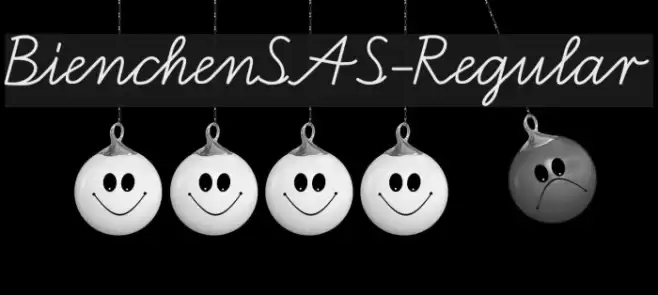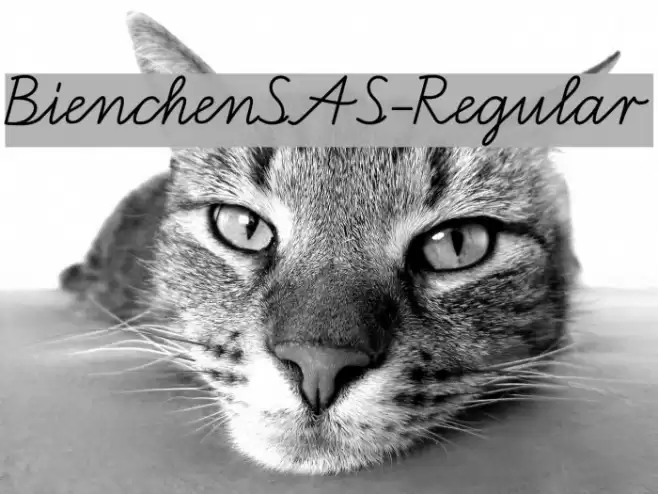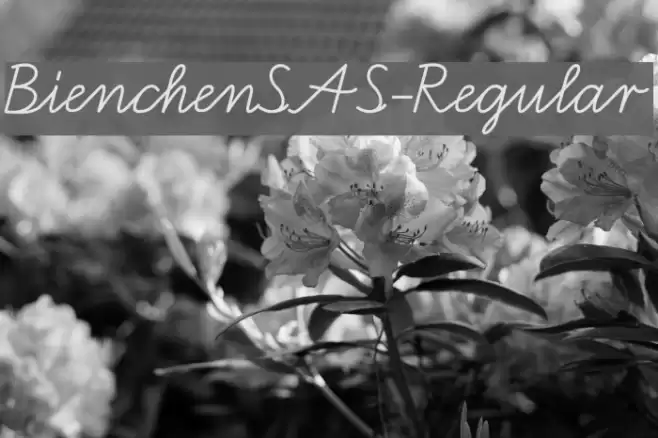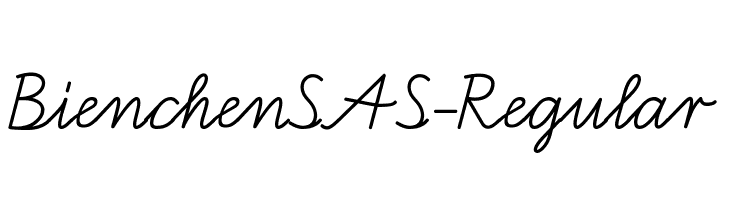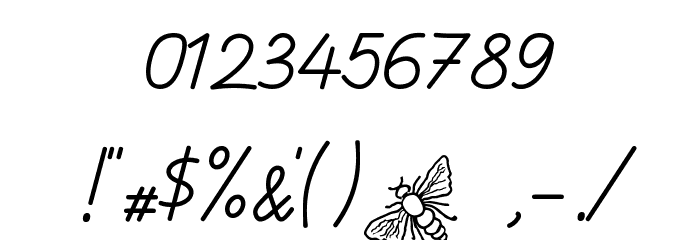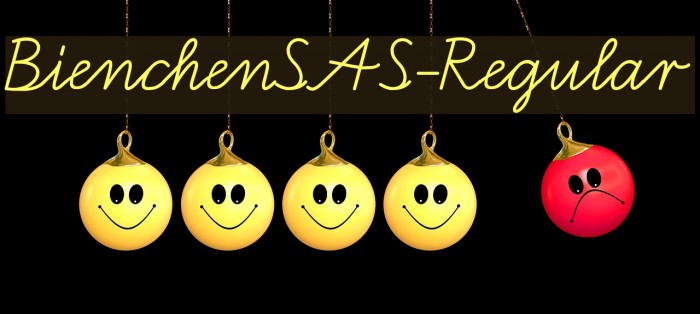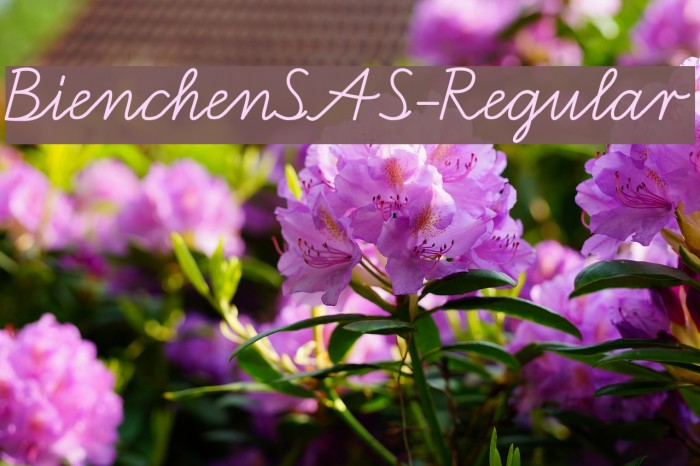
BienchenSAS-Regular Font
BienchenSAS-Regular Description
This font exudes a playful and whimsical charm, characterized by its flowing, cursive style. The letters are elegantly connected, creating a sense of movement and fluidity. The uppercase letters maintain a consistent height, while the lowercase letters feature gentle loops and curves, adding to the font's graceful appearance. The numerals are clear and easy to read, complementing the overall style. Special characters are thoughtfully designed, with a unique bee illustration adding a touch of creativity. This font is perfect for projects that require a personal, handwritten touch, such as invitations, greeting cards, or creative branding.
A playful, cursive font with elegant connections and a whimsical style from Uncategorized fonts.
- Overall Style: Whimsical